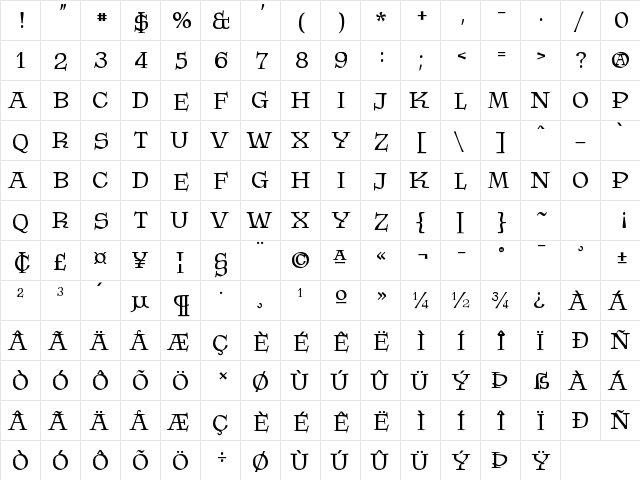
Krasomila Regular
Design Context for Krasomila Typeface
Krasomila is a composed and adaptable typeface that performs quietly and consistently across a wide range of design contexts.